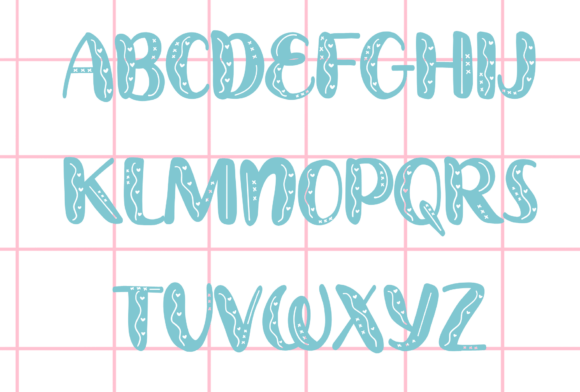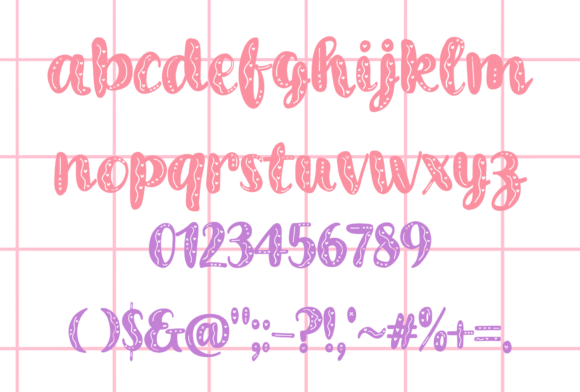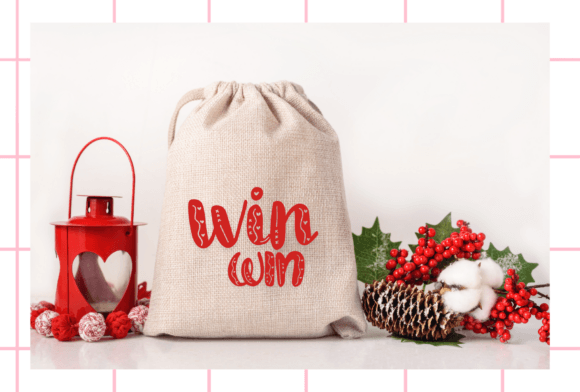
Introduction to Merry Love Font
Merry Love, is a cute cozy handwritten font that feels warm and festive.
Its letters are soft and playful, perfect for adding a personal touch to holiday cards, decorations, and invitations The style captures the joyful spirit of the Christmas season.
Key Features of Merry Love Font